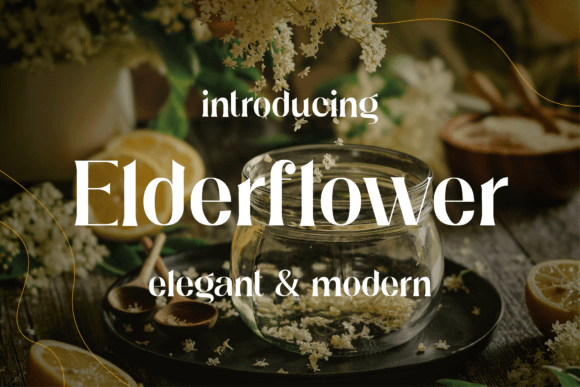
Introducing Elderflower Font: Elevate Your Design with Elegance
In the world of typography, a well-crafted font can make all the difference in elevating a design project from ordinary to extraordinary. For designers and crafters seeking a touch of sophistication and elegance, the Elderflower Font is an exceptional choice. This beautiful, serif typeface is specifically designed for modern design projects, offering a unique blend of classic charm and contemporary flair.
The Essence of Elderflower Font
Elderflower Font is an elegant typeface that exudes refinement and poise. Its distinctive serif characteristics add a layer of depth and sophistication to any design, making it perfect for a wide range of applications. From posters and packaging to editorials, advertising, and social media quotes, this versatile font is sure to impress.
One of the standout features of Elderflower Font is its incredible versatility. Its elegant design makes it an ideal choice for:
- Posters: Create eye-catching posters that demand attention with Elderflower Font’s bold, yet refined style.
- Packaging: Add a touch of luxury to your product packaging with this sophisticated typeface.
- Editorials: Elevate your editorial designs with Elderflower Font’s classic, yet modern aesthetic.
- Advertising: Craft compelling ads that capture your audience’s attention with this elegant font.
- Social Media Quotes: Share inspiring quotes on social media with a stylish and sophisticated flair.
- Wedding Branding: Make your wedding designs truly unforgettable with Elderflower Font’s romantic and elegant charm.
- Web Design: Enhance your website’s typography with this beautiful, easy-to-read font.
- Mood Boards: Create visually stunning mood boards that showcase your design vision.
- Badges: Design custom badges that exude elegance and sophistication.
Why Choose Elderflower Font?
With so many fonts available, why choose Elderflower Font for your design projects? Here are just a few compelling reasons:
- Unique Design: Elderflower Font boasts a distinctive, one-of-a-kind design that will set your projects apart from the rest.
- Elegant and Refined: This font’s sophisticated style is perfect for designers seeking to add a touch of luxury to their work.
- Versatile: Elderflower Font is suitable for a wide range of design applications, making it an excellent addition to any designer’s toolkit.
- Easy to Read: Despite its elegant design, Elderflower Font remains highly legible, ensuring your message is always clear and concise.
Tips for Using Elderflower Font Effectively
To get the most out of Elderflower Font, consider the following tips:
- Pair with Complementary Fonts: Combine Elderflower Font with complementary fonts to create visually appealing contrast and hierarchy.
- Experiment with Font Sizes: Play with different font sizes to create emphasis and add depth to your designs.
- Pay Attention to Kerning: Ensure optimal kerning to maintain the font’s elegant appearance and prevent awkward spacing.
Elderflower Font is a stunning, elegant typeface that is sure to elevate your design projects to new heights. Its unique blend of classic charm and modern sophistication makes it perfect for a wide range of applications. Whether you’re a designer, crafter, or simply someone who appreciates beautiful typography, Elderflower Font is an excellent choice for anyone seeking to add a touch of refinement and elegance to their work.